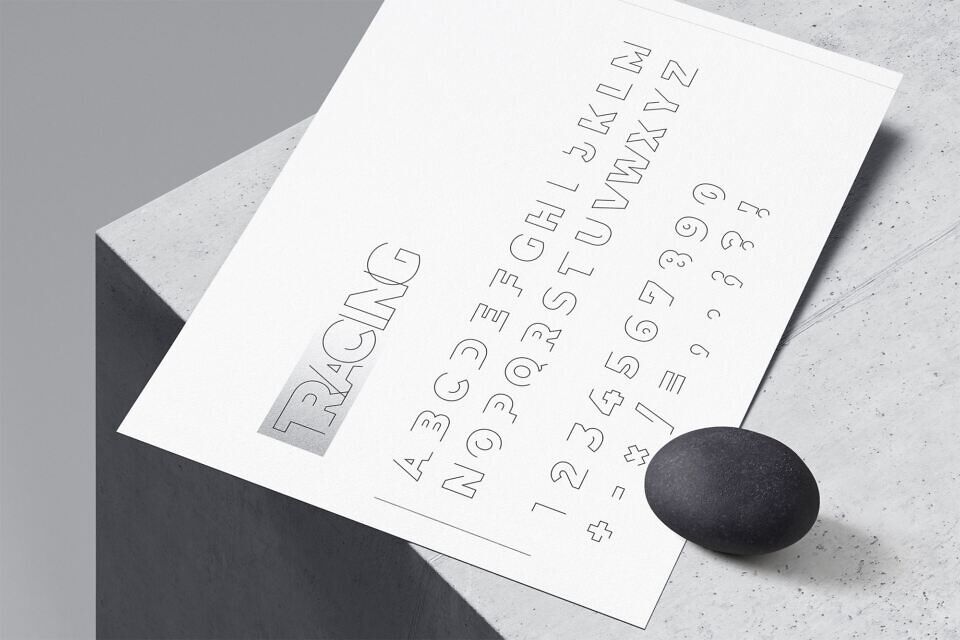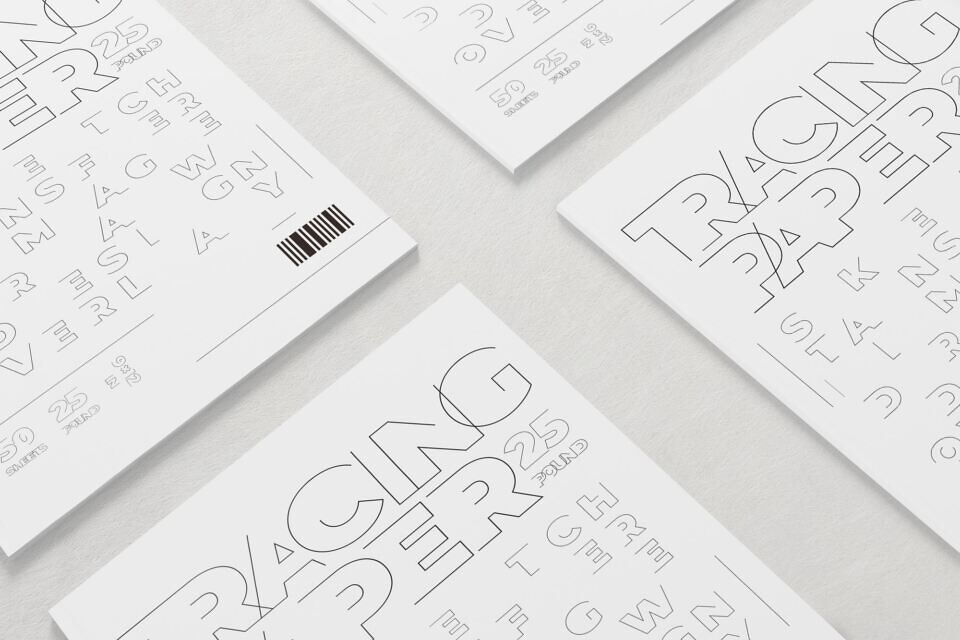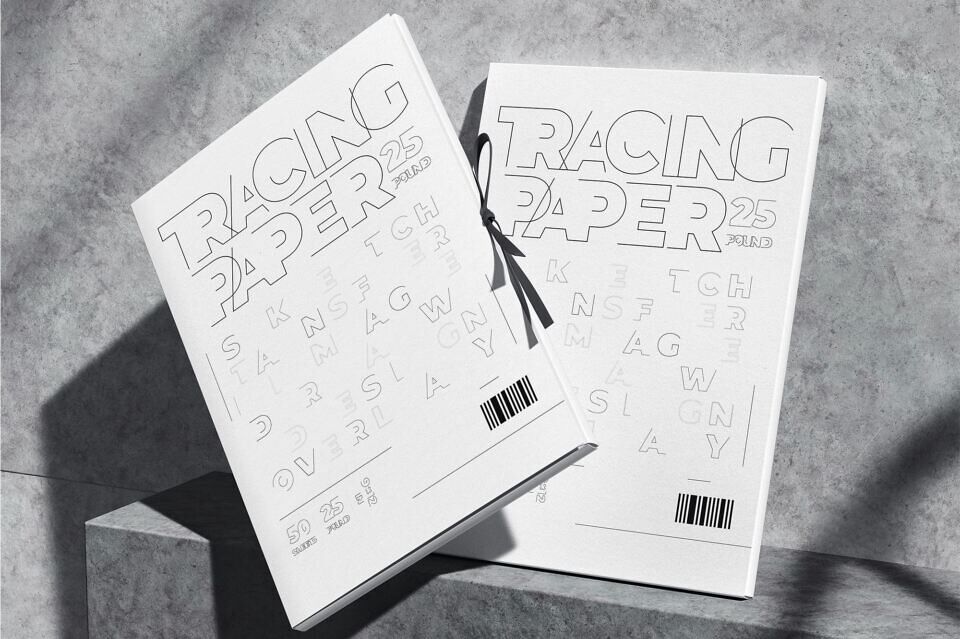
Tracing Font
Tracing is a display typeface that masterfully balances boldness and delicacy. Inspired by the translucent quality and quiet rhythm of tracing paper. Through meticulous sketching and refining, this design by Julia Design Lab (Yichen Wang) features strokes that blend thick, strong lines with thin, delicate ones.
This interplay creates a unique aesthetic, offering versatility and visual intrigue. Ideal for projects seeking a distinctive yet harmonious look, Tracing captures the essence of contrast in a typeface that is both striking and refined.